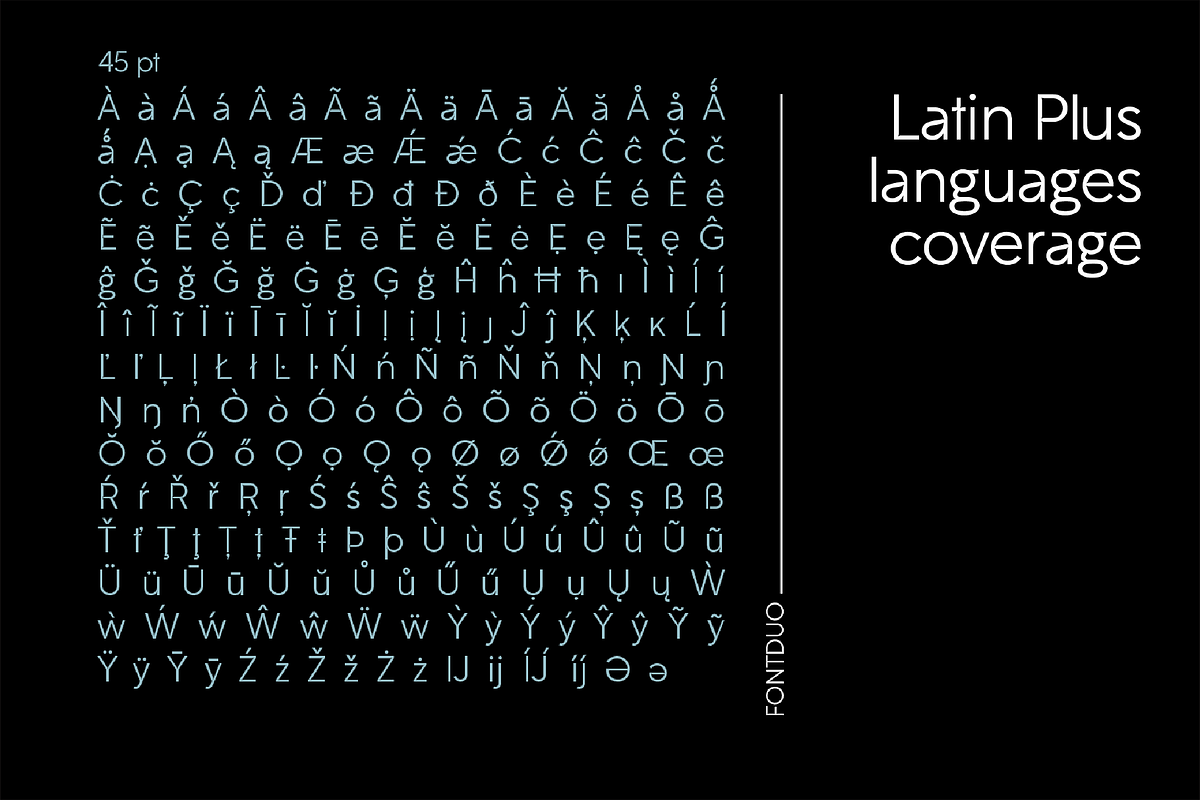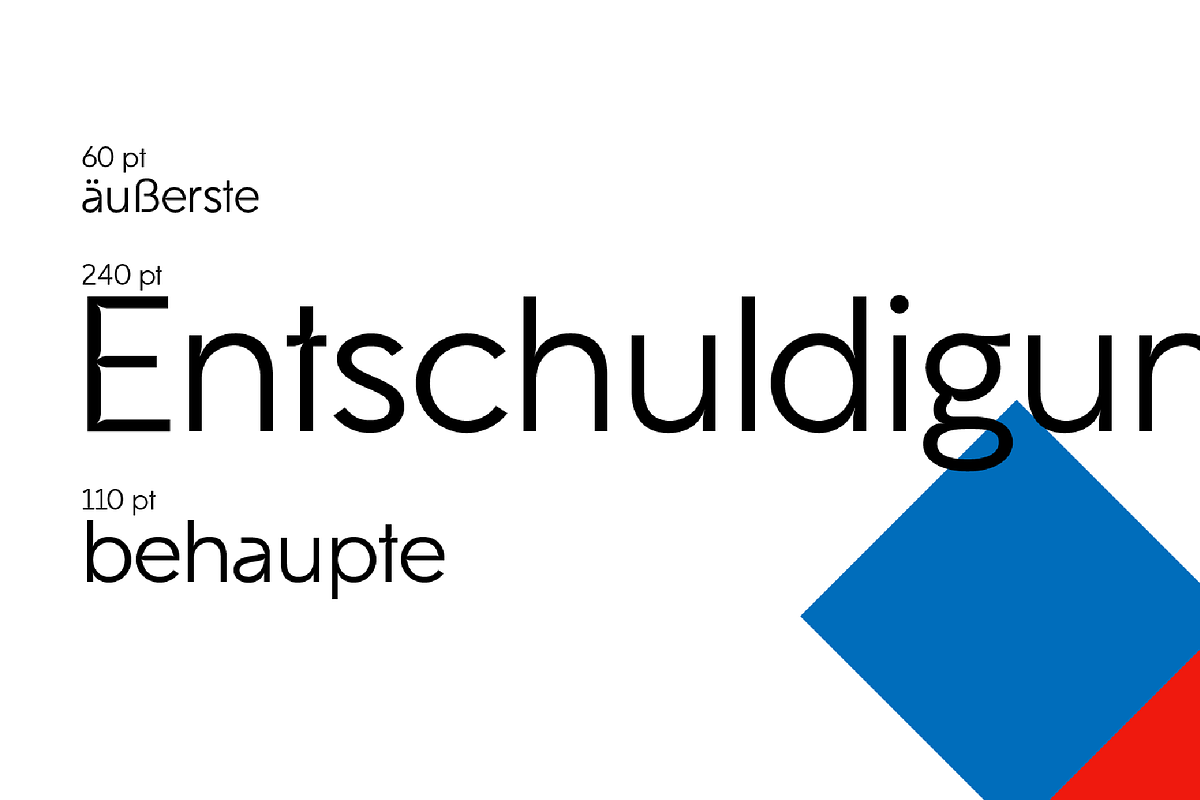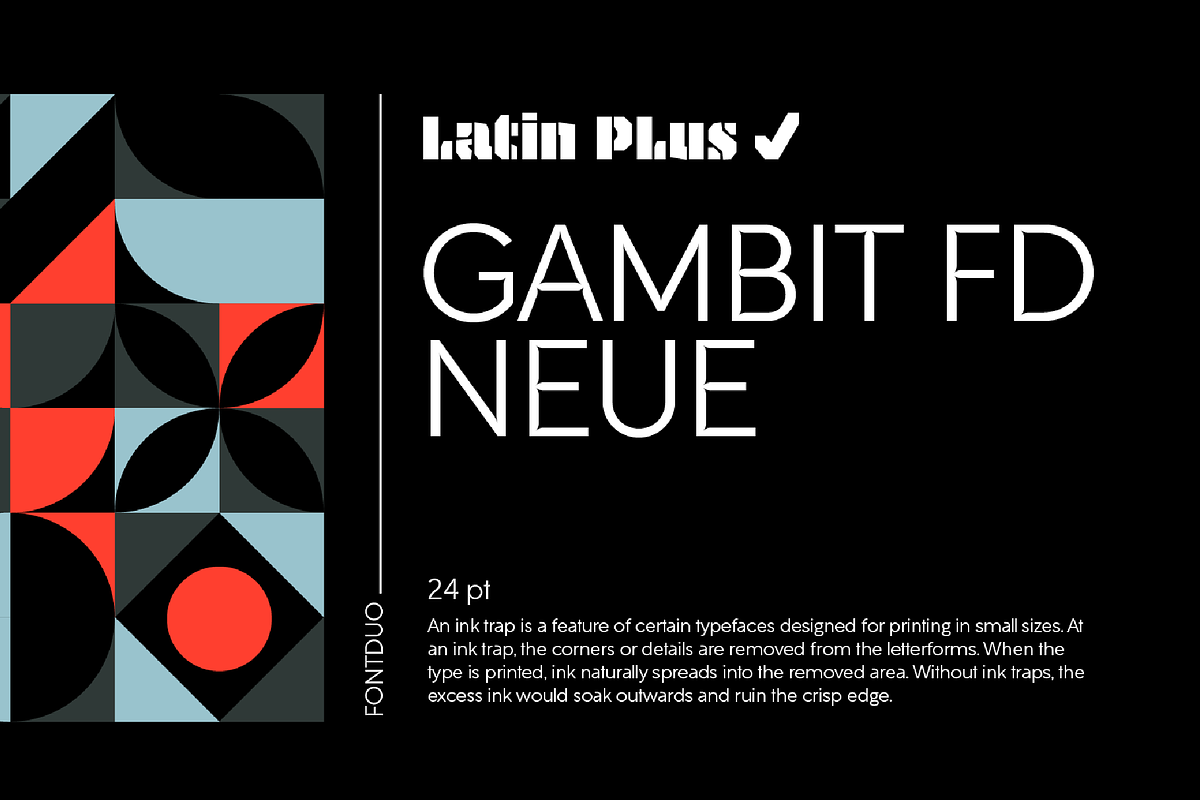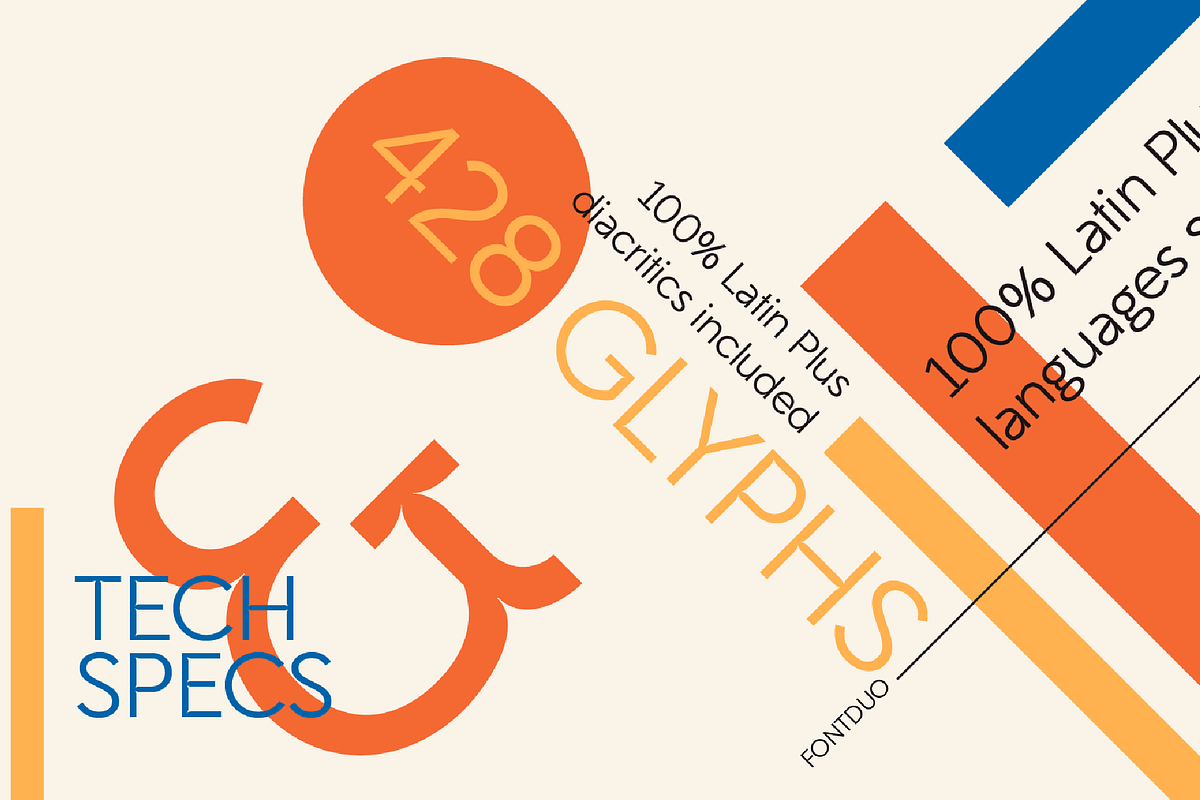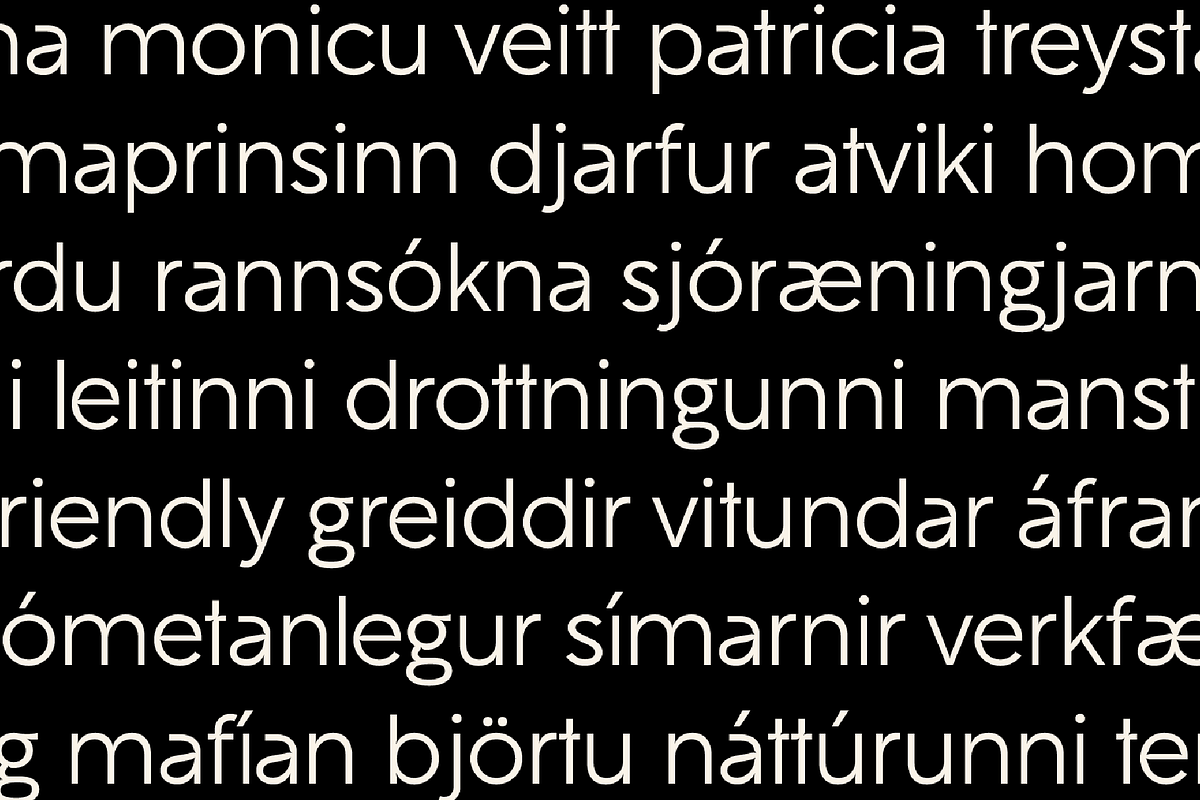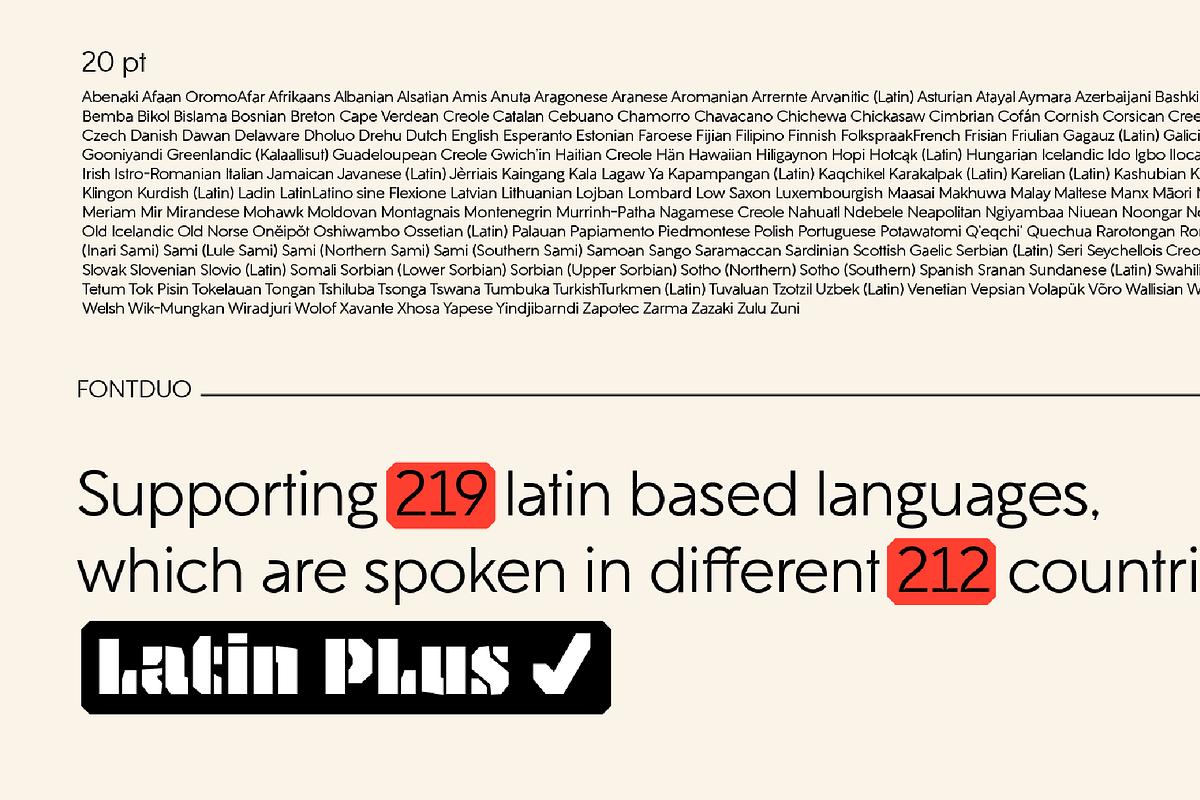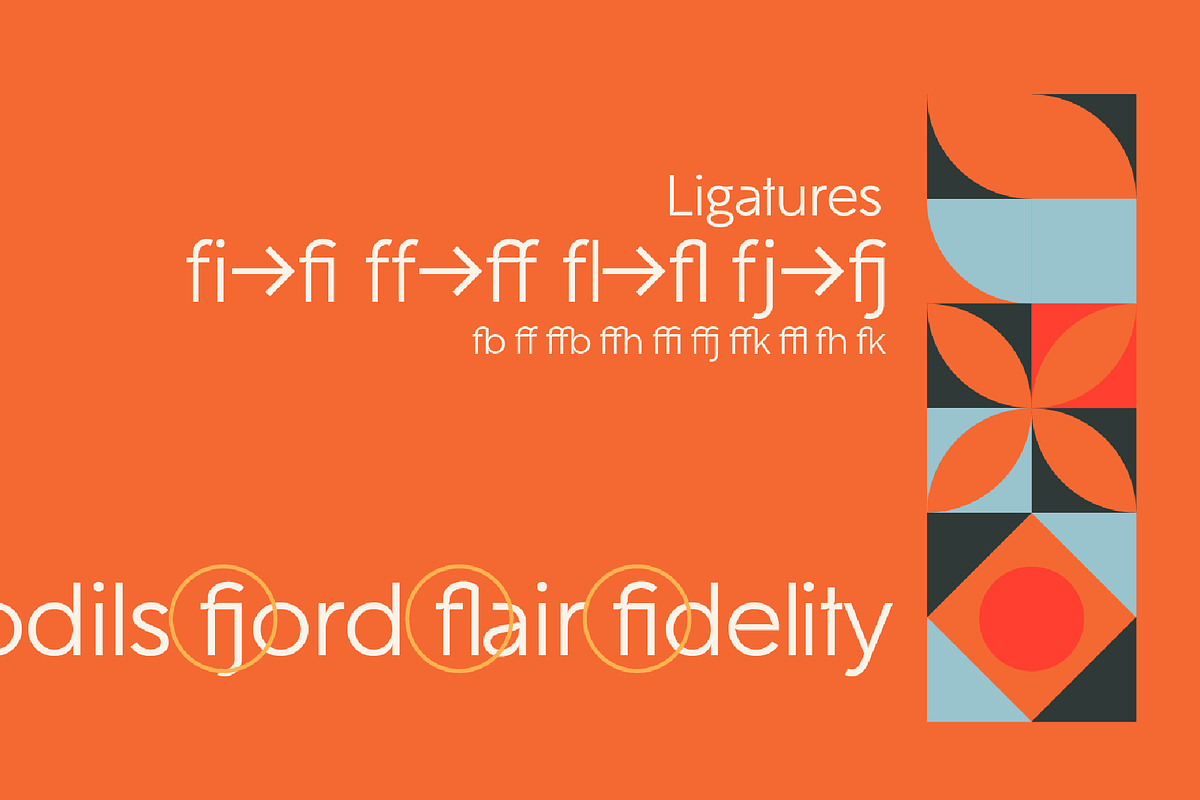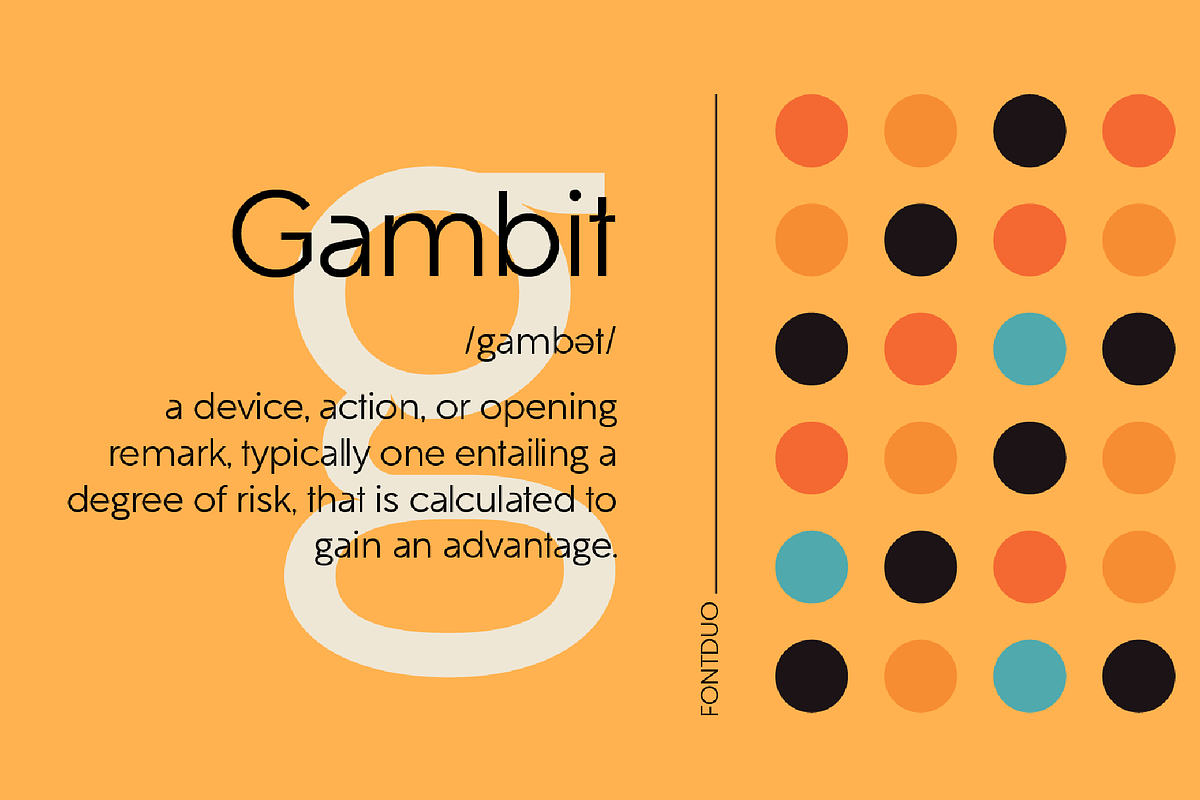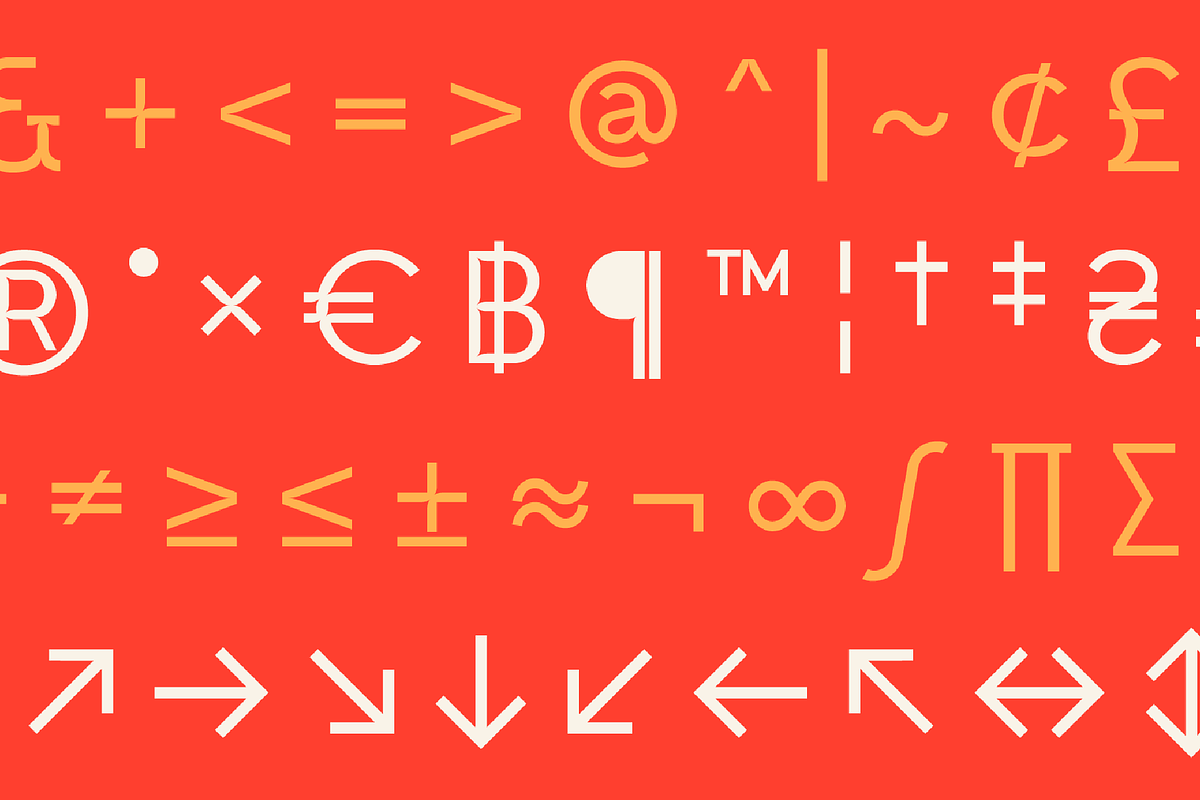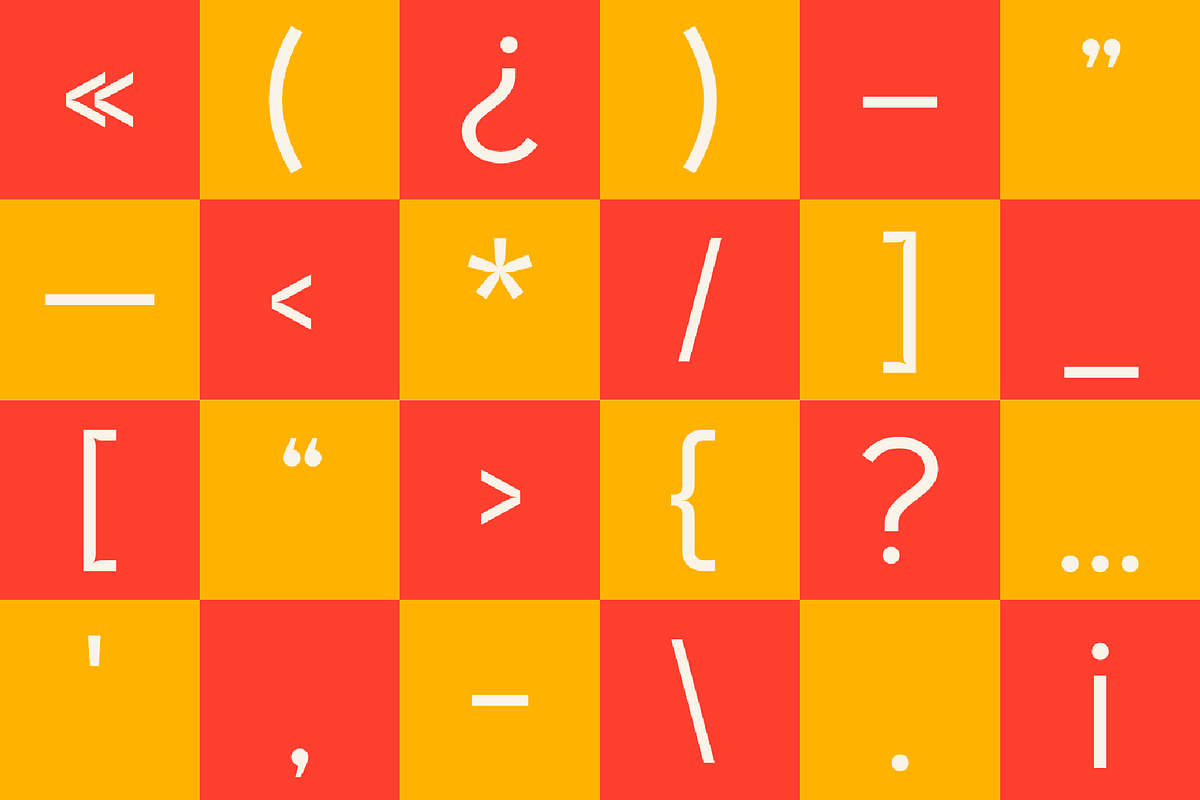
Gambit FD Neue
Gambit FD Neue is a geometric sans serif. The first of the family is Gambit FD Neue Regular. There's a future plan on adding all the weights and Italic versions.
Gambit FD Neue's highlight is its ink traps added to almost all the characters. An ink trap is a feature of certain typefaces designed for printing in small sizes. At an ink trap, the corners or details are removed from the letterforms. When the type is printed, ink naturally spreads into the removed area. Without ink traps, the excess ink would soak outwards and ruin the crisp edge. (https://en.wikipedia.org/wiki/Ink_trap)
Gambit FD Neue has a complete set of basic Separators, Punctuations (Dash, Parenthesis, Quote), Symbols, and Combining Marks.
This font is best used in body texts of magazines and websites with long paragraphs.
Gambit FD Neue Language Support: